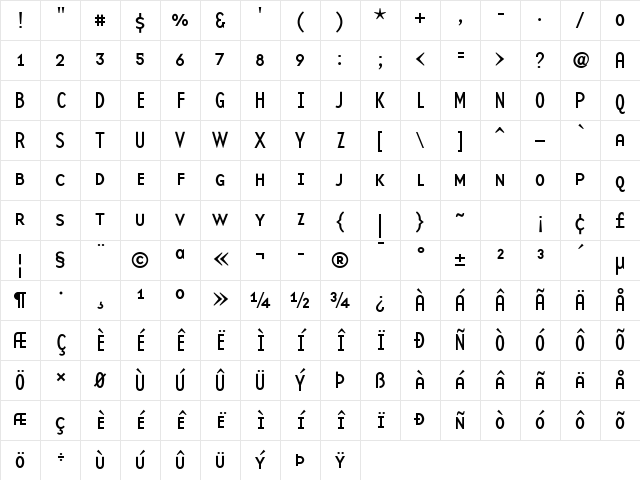
BaseTwelveSansSmallcaps is a composed and adaptable typeface that performs quietly and consistently across a wide range of design contexts.
Pro Tip: Use BaseTwelveSansSmallcaps in both headline and body roles to test its range before committing to a single application.